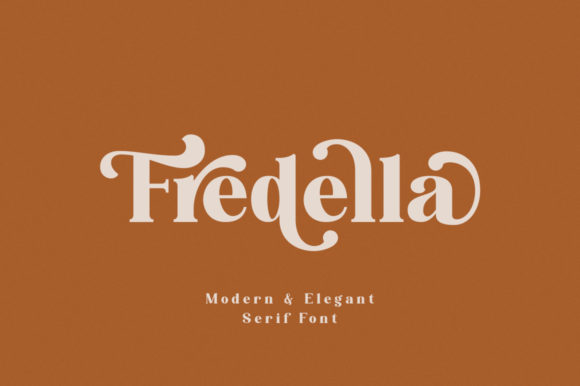
Introducing Fredella Font: A Timeless Elegance for Your Designs
In the world of typography, few fonts manage to convey the essence of classic elegance while also offering versatility and flair. Fredella Font is one such typeface that has captured the hearts of designers and typography enthusiasts alike. With its serene and sophisticated appearance, Fredella is not just a font; it’s an experience. In this article, we’ll dive deep into the features, benefits, and uses of Fredella Font, exploring why it has become a go-to choice for designers looking to add a touch of luxury and refinement to their work.
The Essence of Fredella Font
Fredella is a classic and elegant serif font that exudes an air of sophistication. Its design is meticulously crafted to provide a timeless appeal, making it suitable for a wide range of design projects, from luxury branding and high-end product packaging to elegant wedding invitations and professional publications. The font’s serifs are carefully designed to add a touch of elegance and refinement, setting it apart from more contemporary typefaces.
Key Features of Fredella Font
- Great Alternates and Swashes: One of the standout features of Fredella Font is its extensive collection of alternate glyphs and swashes. These elements allow designers to add a unique flair to their work, making each design truly stand out. Whether you’re looking to create a bold statement or a subtle nuance, Fredella’s alternates and swashes provide the flexibility to achieve your desired effect.
- Alternate Glyphs and Ligatures: Beyond its swashes, Fredella also includes a wealth of alternate glyphs and ligatures. These features enable designers to create complex, visually appealing text that maintains readability while showcasing creativity. From subtle variations in letterforms to intricate ligatures, Fredella provides the tools to elevate any design.
Why Choose Fredella Font?
With so many fonts available to designers today, what makes Fredella stand out? The answer lies in its versatility, elegance, and the value it offers to a designer’s toolkit. Here are a few reasons why Fredella Font has become a preferred choice:
- Versatility: Fredella’s classic design makes it suitable for a wide range of projects. Whether you’re working on a corporate brand identity, a wedding invitation, or a fashion magazine, Fredella adapts seamlessly, adding a touch of elegance to any design.
- Unique Designs: In a sea of similar fonts, Fredella offers something unique. Its swashes, alternates, and ligatures provide endless possibilities for customization, ensuring that your designs stand out in a crowded marketplace.
- Timeless Appeal: Trends in design come and go, but classic elegance never goes out of style. Fredella’s timeless design ensures that your work remains relevant and stylish for years to come.
Using Fredella Font in Your Designs
So, how can you make the most of Fredella Font in your projects? Here are a few tips to get you started:
- Experiment with Swashes: Don’t be afraid to try out different swashes and alternates. They can dramatically change the feel of your text, adding a level of sophistication or playfulness, depending on your design’s needs.
- Mix and Match: Combine Fredella with other fonts to create a unique typographic hierarchy. Its classic serif design pairs well with both modern sans-serifs and elegant script fonts.
- Pay Attention to Ligatures: Ligatures can add a flowing, organic feel to your text. Use them to create visually appealing headings or to add interest to body text.
- Adjust and Customize: Take advantage of Fredella’s range of glyphs to customize your text. From simple adjustments to more elaborate designs, the possibilities are endless.
Fredella Font is more than just a typeface; it’s a tool for designers to create stunning, elegant designs that stand out. With its classic and elegant serif design, extensive alternates and swashes, and user-friendly PUA encoding, Fredella offers everything needed to elevate a design from ordinary to extraordinary. Whether you’re a seasoned designer or just starting out, Fredella Font is a valuable addition to your typographic arsenal, ready to help you create works of beauty and sophistication.